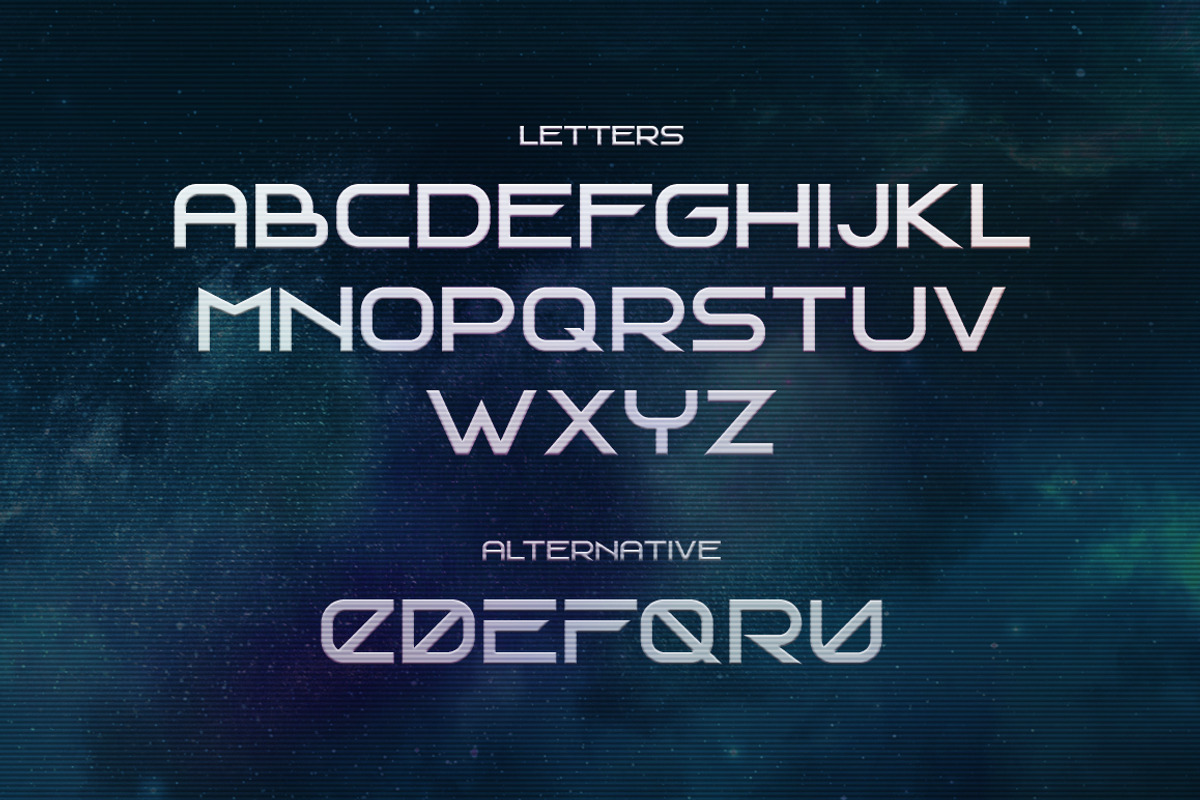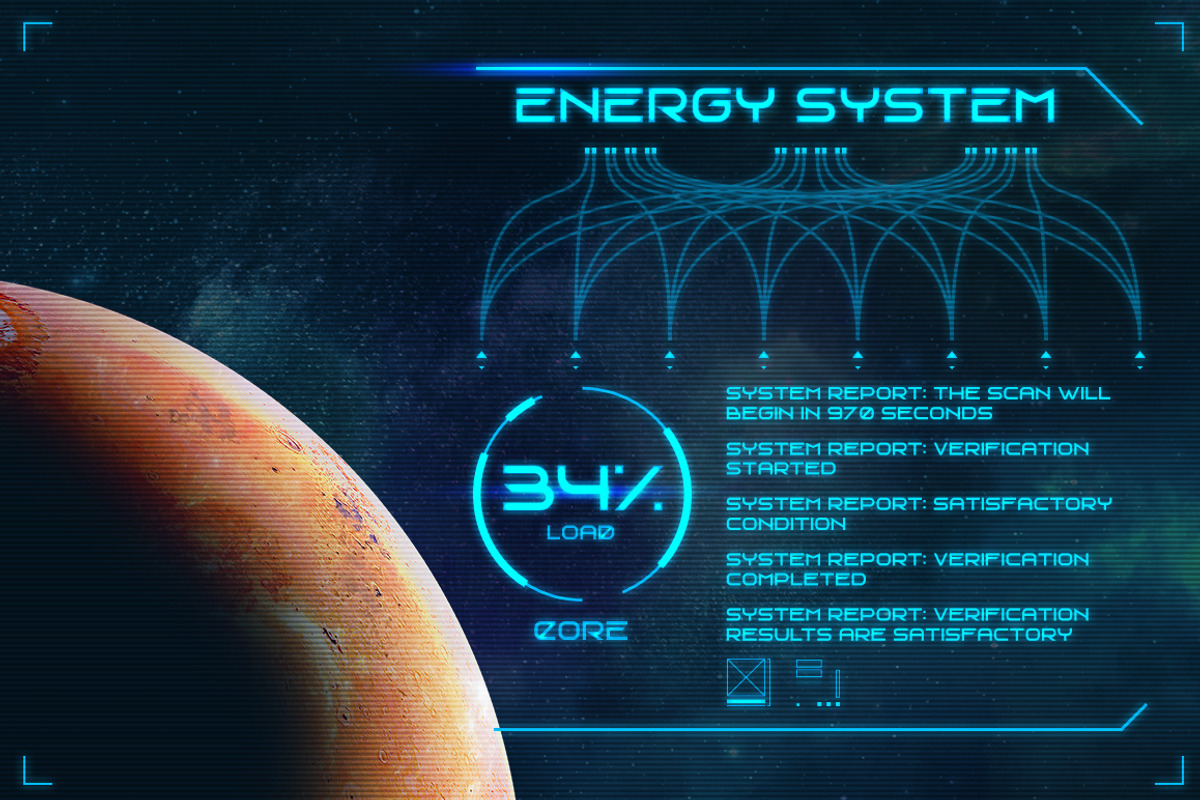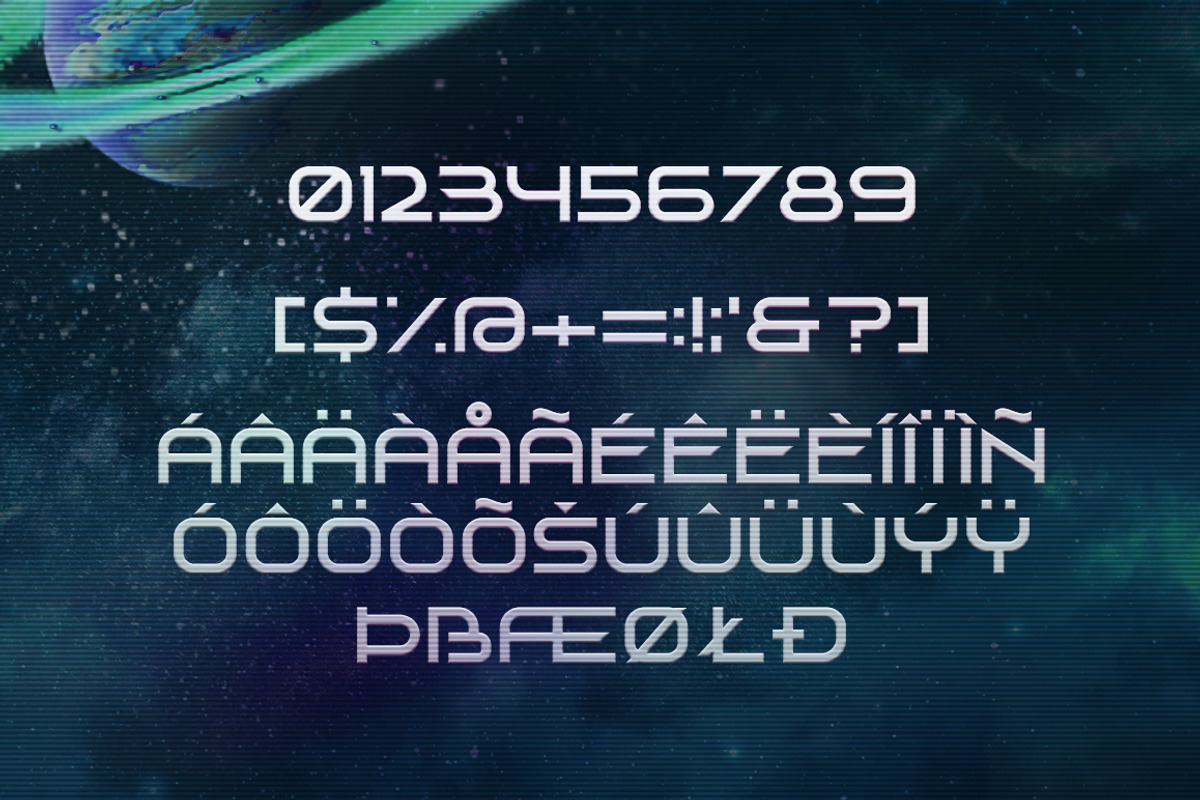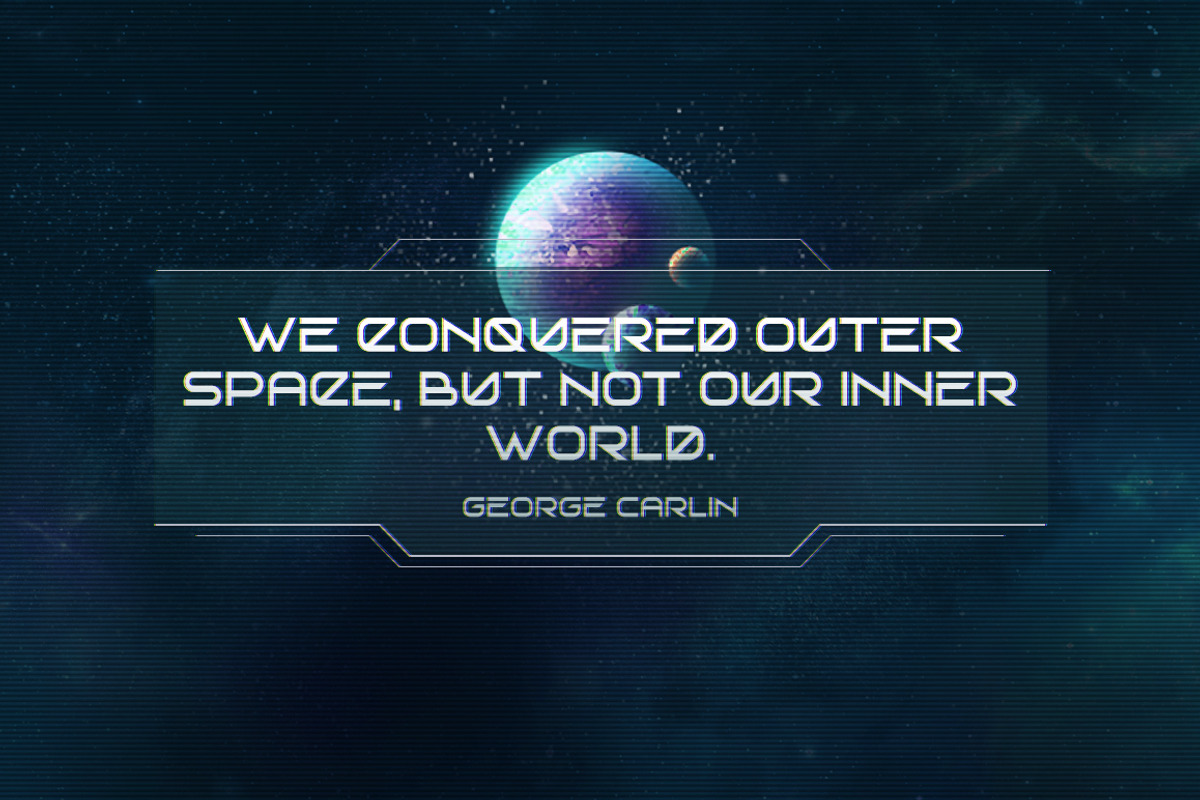
Spacesing. Futuristic font
Spacesing is a futuristic font. It's minamlistic font, have alternate letters and multilanguage. It consists of simple geometric forms. It will be good for game interfaces, posters, movie and web design.
- It's minamlistic font, have alternate letters and multilanguage.